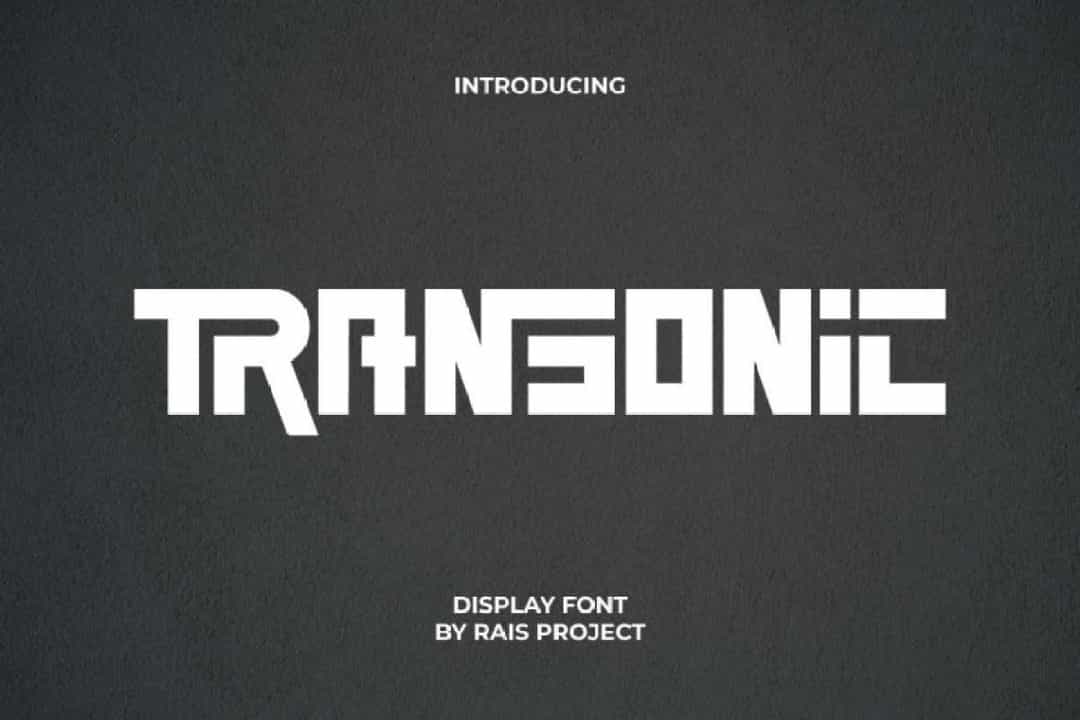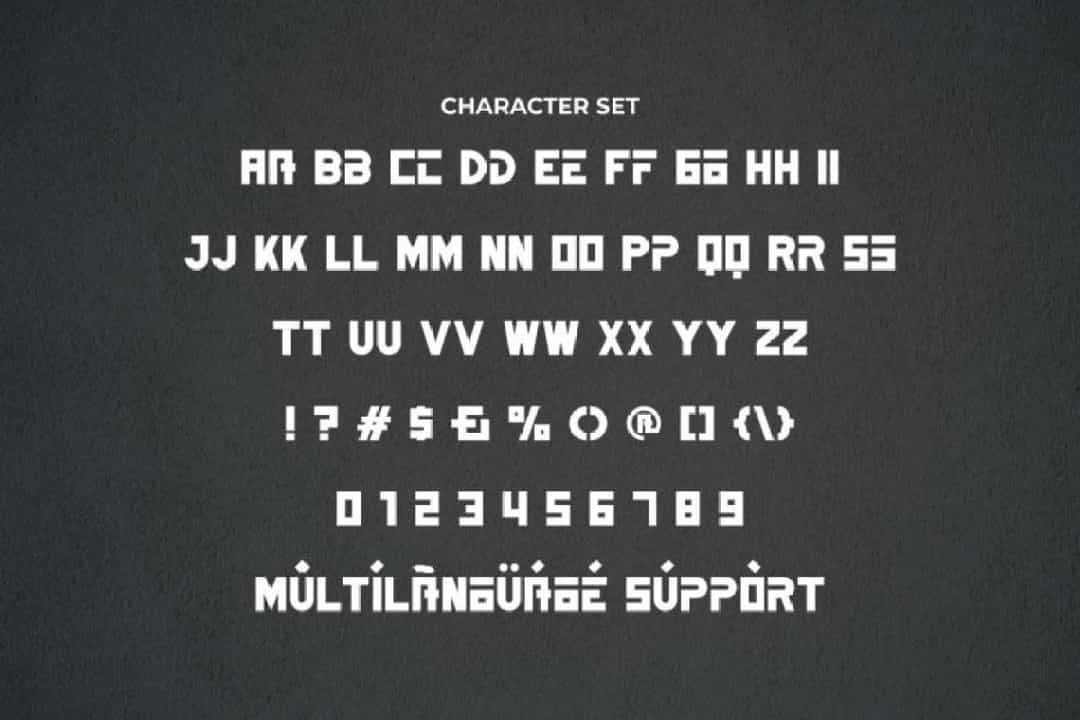
Transonic Font is an eye-catching and sporty Sans Serif Display font family designed by RaisProject that draws its inspiration from technology and sports fields. Perfect for branding magazines, advertising signs, invitations stationery or labeling social media posts; Transonic Font is perfect for projects requiring unique minimalist design elements.